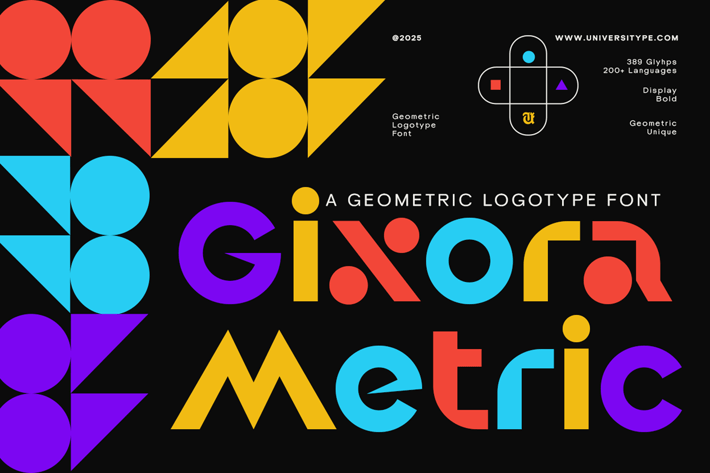
Gixora Metric - A Geometric Logotype Font
Introducing Gixora Metric, a revolutionary geometric logotype font that brings a fresh and modern twist to your design projects. Crafted with precision and creativity, Gixora Metric is perfect for brands looking to make a bold statement and stand out in a crowded market.
Key Features:
Bold and Impactful: With its thick strokes and bold weight, Gixora Metric ensures your text captures attention and leaves a lasting impression.
Geometric Elegance: The font’s geometric design, constructed from simple shapes like circles, triangles, and rectangles, offers a unique and contemporary aesthetic.
Multilingual Support: With support for over 200 languages, Gixora Metric is perfect for global branding and communication.
Comprehensive Glyph Set: Boasting 389 glyphs, Gixora Metric provides a wide range of characters, symbols, and accents to meet all your design needs.
Versatile Applications: Ideal for logo design, headings, titles, and other prominent text elements, Gixora Metric is a versatile font that adapts to various design contexts.
Unique Style: Gixora Metric’s geometric and unique style helps your brand stand out and make a memorable impression.
Why Choose Gixora Metric?
Enhance Your Brand Identity: Gixora Metric’s distinctive style helps you create a strong and recognizable brand identity.
Attract Attention: Its bold and colorful design ensures your text stands out and captures the attention of your audience.
Expand Your Reach: With multilingual support, Gixora Metric helps you reach a broader audience and communicate effectively across different cultures.
Save Time and Effort: Gixora Metric’s comprehensive glyph set and versatile applications save you time and effort in finding the perfect font for your project.
Inspiration Behind the Design:
Gixora Metric embodies a geometric logotype style with a bold and playful approach, drawing inspiration from the modernist and Bauhaus typography movements. These influential design schools emphasized the use of basic shapes like circles, triangles, and rectangles to define letterforms, creating a visually striking and structurally sound typeface. The font captures the essence of these movements, combining geometric precision with a sense of whimsy and creativity.
Usage Suggestions:
Logo Design: Its distinctive style helps create a memorable brand identity that stands out in the market.
Marketing Materials: Use it for headlines, taglines, and key text elements in brochures, flyers, and posters to grab attention.
Websites: Enhance your website’s visual appeal with UT Gixora Metric for navigation menus, banners, and calls to action.
Branding: Apply it across all brand touchpoints to create a cohesive and impactful brand experience.
Technical Details:
Glyphs: Gixora Metric includes 389 glyphs, offering a wide range of characters and symbols to support diverse design needs.
Languages: The font supports over 200 languages, making it suitable for global branding and communication efforts.
Weight: Available in a bold weight, ensuring your text stands out in both print and digital media.
Design: The geometric design, constructed from basic shapes, provides a unique and modern look that is both elegant and clear.